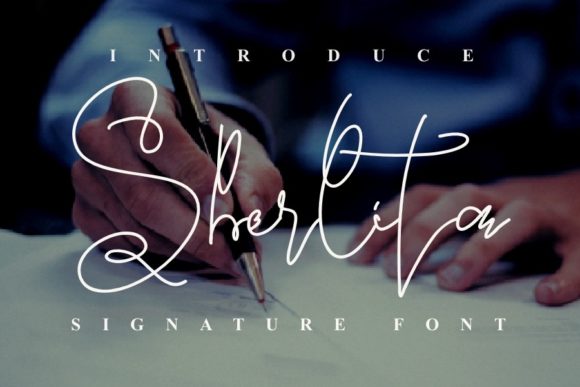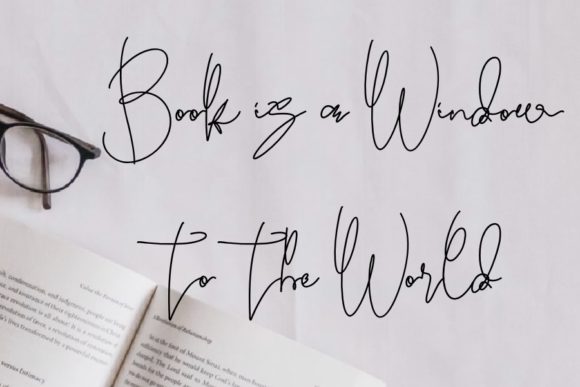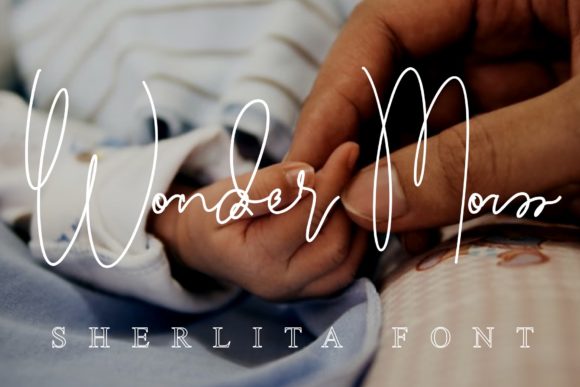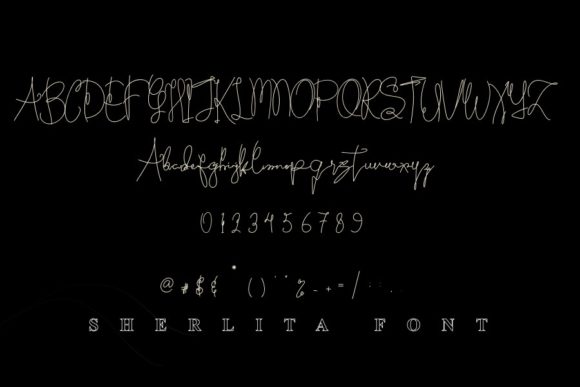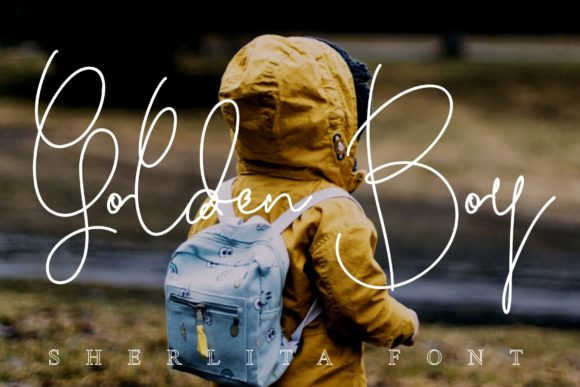
Sherlita Font
About Sherlita Font
Create gorgeous and timeless designs with Sherlita, an interesting and unique handwritten font.
Sherlita is the perfect font for logos, stationery, quotes, book covers, magazines, branding and much more